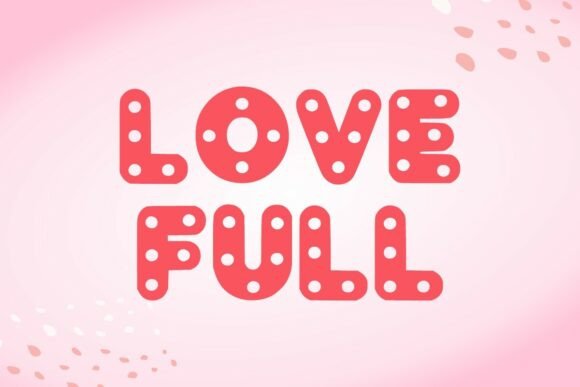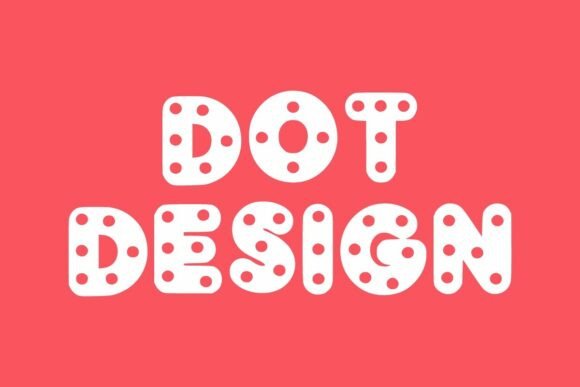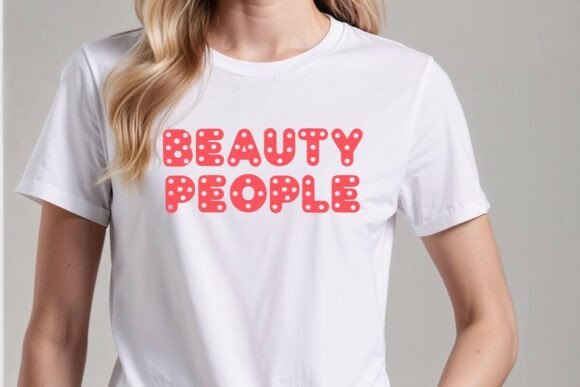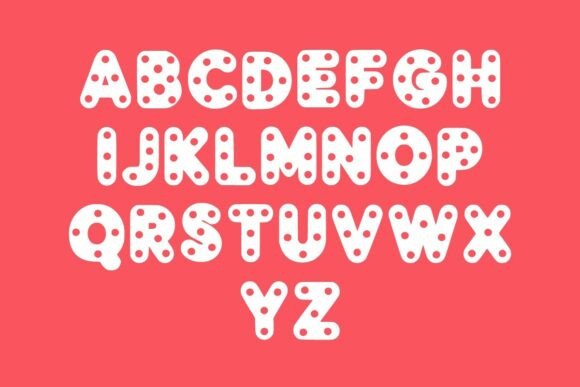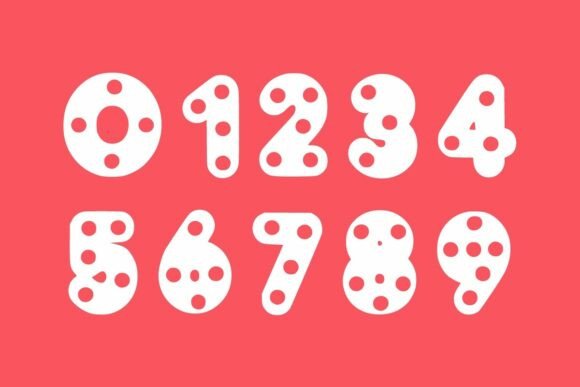
Introducing Dotty Bubble Font: The Ultimate Display Font for Friendly and Playful Designs
Are you tired of using the same old fonts for your designs? Look no further! Dotty Bubble Font is here to add a touch of friendliness and playfulness to your projects. This dot bubble display font is perfect for designers, crafters, and anyone looking to add a dash of whimsy to their work.
What is Dotty Bubble Font?
Dotty Bubble Font is a unique and eye-catching display font that features a dot bubble design. Its cartoon-like style makes it perfect for games, crafts, digital design, presentations, and greeting cards. The font’s easy-to-read design ensures that your message is conveyed clearly, while its friendly aesthetic adds a touch of approachability.
Key Features of Dotty Bubble Font
- Easy to Read: The font’s clear and simple design makes it easy to read, even at smaller sizes.
- Perfect for Games: The playful and cartoon-like style of Dotty Bubble Font makes it an excellent choice for game designs, such as character names, titles, and dialogue.
- Versatile: Use Dotty Bubble Font for a variety of projects, including crafts, digital design, presentations, and greeting cards.
- Conveys Friendliness: The font’s friendly aesthetic makes it perfect for designs that require a touch of approachability and warmth.
Why Choose Dotty Bubble Font?
With so many fonts available, why choose Dotty Bubble Font? Here are a few reasons why designers and crafters love this font:
- Unique Design: Dotty Bubble Font’s dot bubble design sets it apart from other fonts, making it perfect for designers looking to add a touch of personality to their work.
- Time-Saving: With Dotty Bubble Font, you can create professional-looking designs in no time. Its easy-to-read design and friendly aesthetic make it perfect for quick and easy projects.
- Customizable: Use Dotty Bubble Font to create a wide range of designs, from playful and fun to elegant and sophisticated.
How to Use Dotty Bubble Font
Using Dotty Bubble Font is easy! Here are a few ways to incorporate it into your designs:
- Games: Use Dotty Bubble Font to create character names, titles, and dialogue for your game designs.
- Crafts: Add a touch of personality to your craft projects, such as handmade cards, scrapbooking, and DIY decorations.
- Digital Design: Use Dotty Bubble Font to create social media graphics, blog posts, and website headers.
- Presentations: Add a touch of friendliness to your presentations with Dotty Bubble Font.
- Greeting Cards: Create personalized and playful greeting cards for any occasion.
Tips and Tricks for Using Dotty Bubble Font
Here are a few tips and tricks for getting the most out of Dotty Bubble Font:
- Experiment with Colors: Try pairing Dotty Bubble Font with bright and bold colors to create a playful and fun design.
- Mix and Match: Combine Dotty Bubble Font with other fonts to create a unique and eye-catching design.
- Play with Size: Experiment with different font sizes to create visual interest and hierarchy in your designs.
Dotty Bubble Font is a versatile and friendly display font that’s perfect for designers, crafters, and anyone looking to add a touch of whimsy to their work. With its easy-to-read design, playful aesthetic, and customizable features, it’s no wonder that Dotty Bubble Font is becoming a favorite among designers and crafters. Try it out today and see how it can elevate your designs!